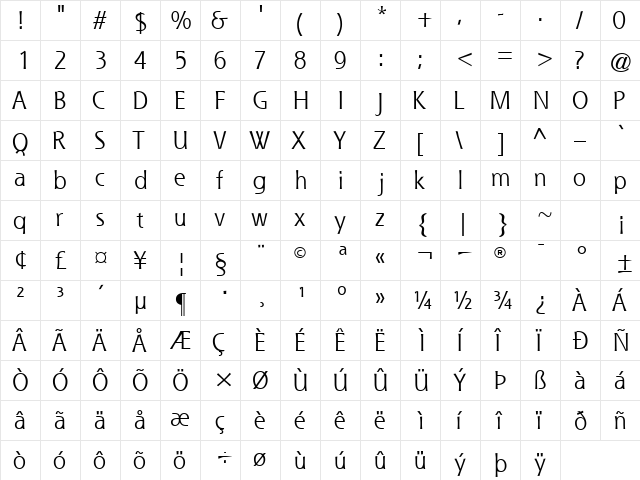
QueSSK Regular
Design Context for QueSSK Typeface
QueSSK is a composed and adaptable typeface that performs quietly and consistently across a wide range of design contexts.